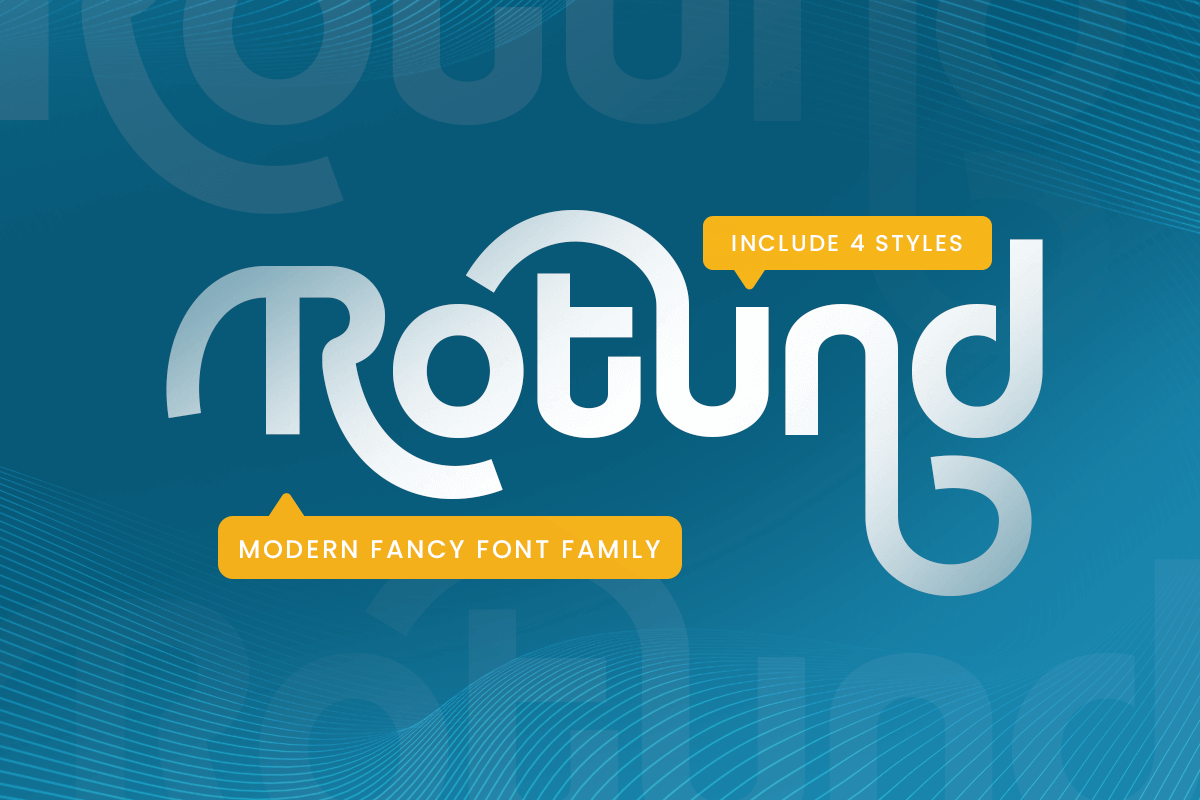
Rotund
-Modern Fancy Font Family
Rotund - Modern Fancy Font Family
Rotund is a modern fancy font family designed to bring personality, flair, and boldness to your design work. With its rounded curves and distinctive forms, Rotund font is ideal for creative branding, fashion lookbooks, posters, packaging, and expressive logos.
This font family offers a versatile range of styles to suit both elegant and playful themes. Whether you're crafting editorial layouts or building a unique identity, Rotund font adapts beautifully across print and digital mediums. Its charm lies in its ability to be bold yet friendly, stylish yet readable.
Stand out with confidence using Rotund — a font family that blends fun, elegance, and strong modern aesthetics.
Rotund – Modern Fancy Font Family Features
• Rounded and stylish letterforms for unique impact
• Multiple weights/styles for versatile design use
• Perfect for branding, fashion, display, and editorial layouts
Add charm and boldness to your work with Rotund — the modern fancy font that turns heads.